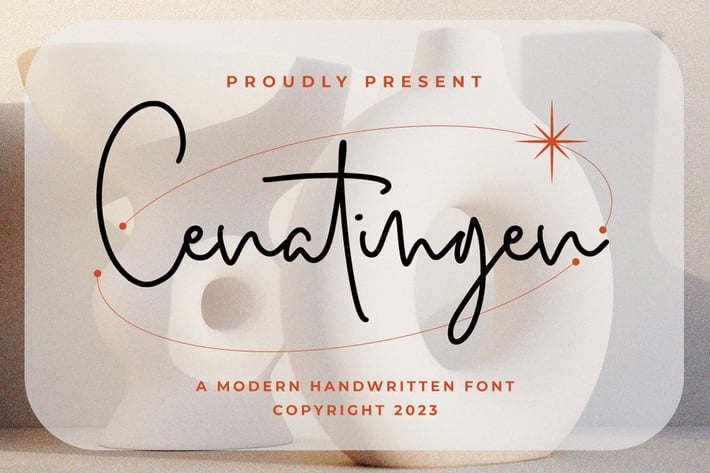
Cenatingen - Monoline Font
Cenatingen is a beautiful light handwritten font with a unique feel and a stunning impact. It will add a luxury spark to any design project that you wish to create!
Ligatures, Swash, Alternates
Letters, Numbers, punctuation
* Multilingual support